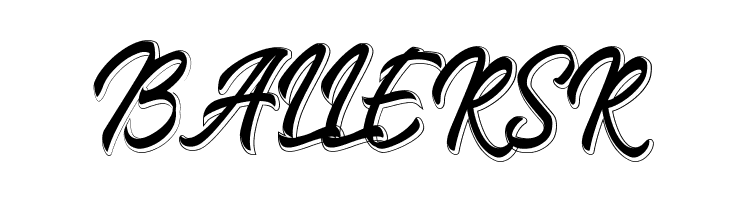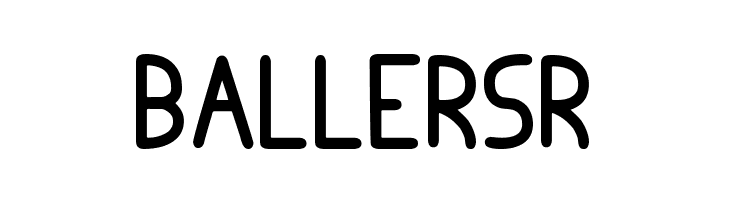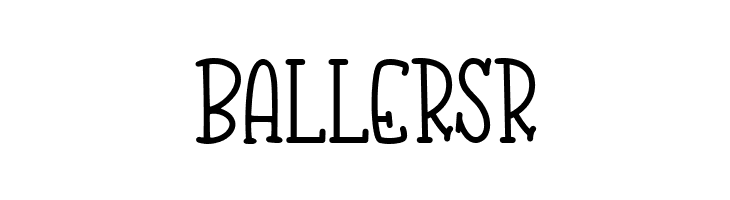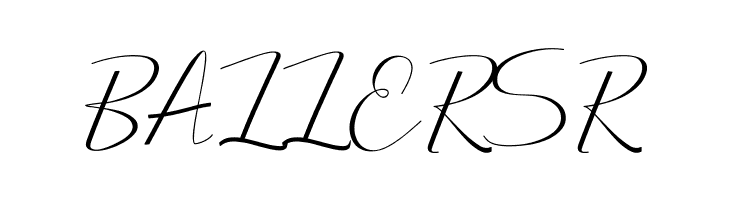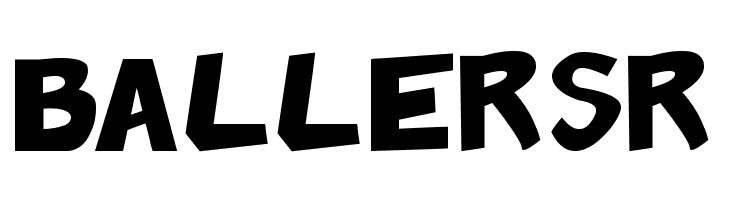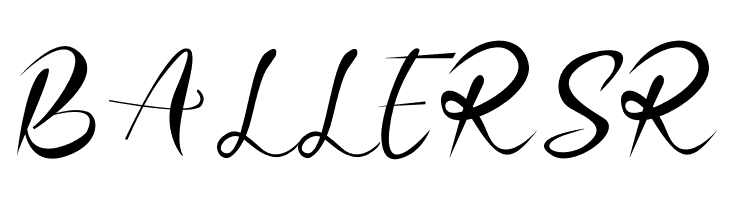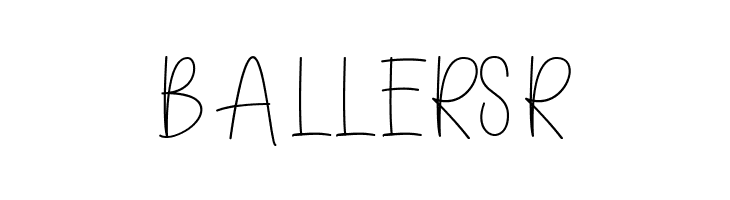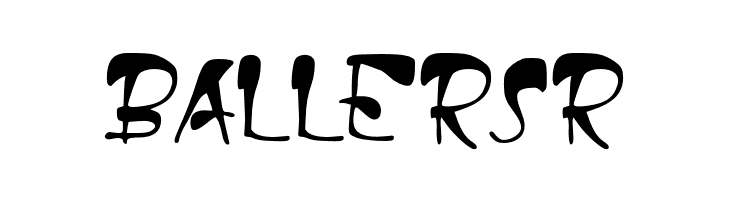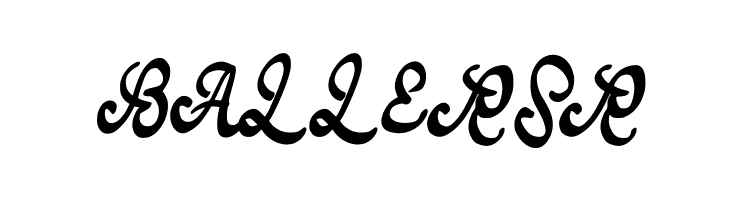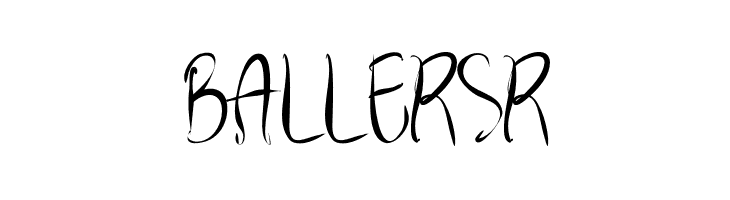
( APG Studios - Anna Gustafson - www.apgstudios.com )
A bold, playful font with a stamped effect and irregular outlines.
A bold, dynamic script font with interconnected letters and a shadow effect.
( Fonts by Albert Kalingga )
A bold, playful font with rounded, thick strokes and a modern, decorative style.
( Fonts by Press Gang Studios - Andeh Pinkard - www.pressgang-studios.com )
A bold, playful font with irregular, cartoonish letterforms.
( Fonts by Press Gang Studios )
A bold, playful font with exaggerated, uneven strokes and a cartoonish flair.
( Fonts by Press Gang Studios )
A bold, italicized font with dynamic and energetic styling.
( Fonts by Press Gang Studios )
A bold, italic font with a dynamic and playful style.
A playful, rounded font with smooth curves and a friendly appearance.
( Phelan Riessen - phelanriessen.com )
A distressed, vintage-style font with a rugged, weathered appearance.
An elegant, calligraphic font with flowing curves and balanced strokes.
A bold, modern font with thick strokes and strong presence, ideal for headlines.
( Fonts by Joko Triwijayanto )
A modern script font with elegant, flowing lines and high contrast.
A bold, artistic font with dynamic, hand-drawn strokes.
( Fonts by Bumbayo Font Fabrik )
A bold, hand-drawn font with a playful, distressed texture.
A dynamic, handwritten-style font with fluid strokes and expressive characters.
( Fonts by Bumbayo Font Fabrik )
A bold, distressed font with a vintage, textured appearance.
A playful handwritten font with thin, flowing strokes and a whimsical style.
( Fonts by Amber Nest )
A playful, hand-drawn font with tall, narrow characters and a whimsical style.
A dynamic and fluid script font with elegant, flowing lines.
( Fonts by Docallisme HAS )
A playful, bold font with a hand-drawn style and dotted outlines.
( Fonts by PiPi Creative )
A playful and elegant script font with a handwritten style.
A playful, casual handwritten font with rounded, consistent strokes.
A bold, geometric font with a 3D effect and sharp angles, offering a modern and industrial look.
A casual, elegant handwritten font with smooth, flowing lines.
A bold, elegant script font with a flowing, handwritten style.
A flowing, cursive font with elegant loops and a classic calligraphy style.
( Craft Supply Co. - creativemarket.com/craftsupplyco )
A bold, brush script font with dynamic, hand-painted strokes.
An elegant, high-contrast script font with flowing, cursive strokes.
A modern, geometric font with rounded edges and a clean design.
( Fonts by benoitsjoholm.blogspot.com - Benoit Sjoholm - Personal-use only. For commercial use please contact owner. )
A modern, geometric font with rounded, uniform characters.
( Pixeluigi - Luis G. Galván - www.facebook.com/memohd25 )
A playful, rounded font with bold, smooth curves and uniform stroke width.
A bold, brush-style script font with a dynamic and handcrafted appearance.